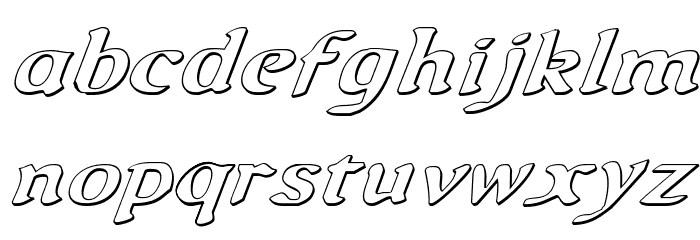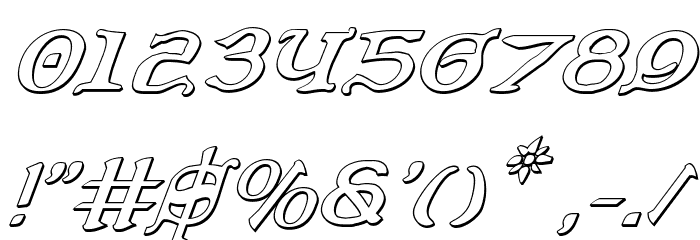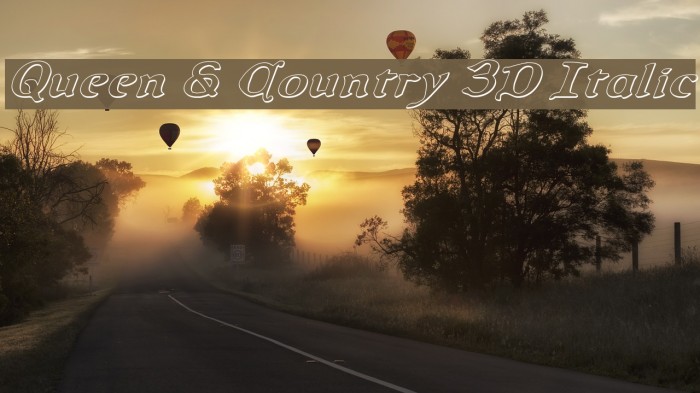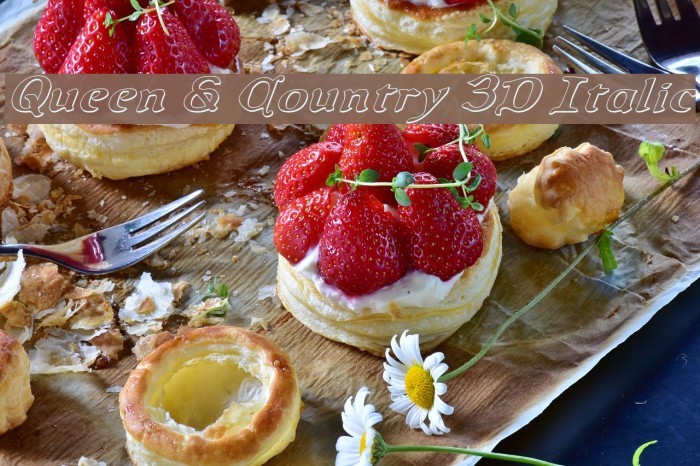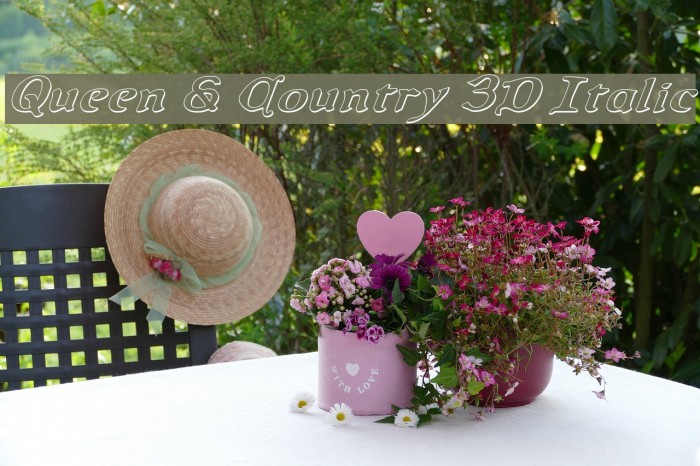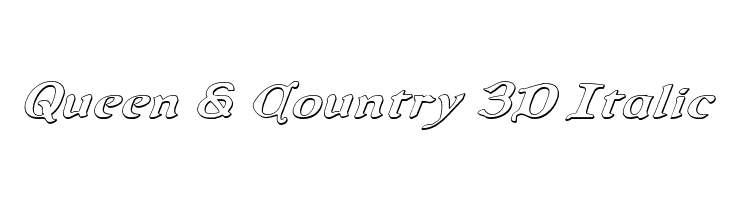
Queen & Country 3D Italic Font
This font features a unique 3D italic style that combines a sense of depth with a classic serif structure. The letters are outlined, giving them a bold appearance while maintaining an elegant and sophisticated look. The uppercase letters have a strong presence with distinctive serifs, while the lowercase letters are more fluid and dynamic. The numbers and special characters follow the same 3D italic design, ensuring consistency across all elements. This font is ideal for projects that require a touch of elegance and modernity, such as branding, posters, and creative designs.
A 3D italic serif font with a bold and elegant outline design.
- Proposed Projects: Ideal for branding, posters, creative designs, and any project requiring a modern yet elegant touch.